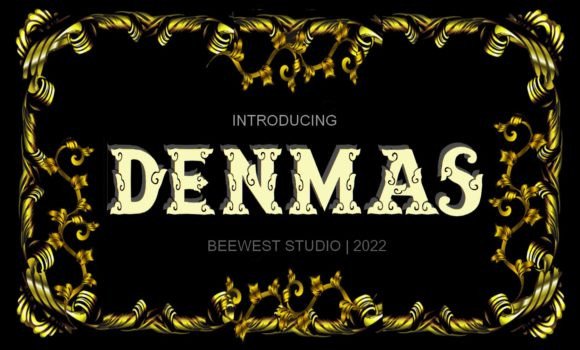
Discover the Unique Charm of Denmas Font: Elevate Your Designs with Modern Elegance
Are you on the hunt for a font that adds a touch of modern sophistication and unique flair to your projects? Look no further than Denmas Font. This contemporary decorative font is making waves in the design community, and for good reason. Its versatility and stylish appearance make it an ideal choice for a wide range of applications, from crafting and digital designing to presentations and greeting card making.
What Makes Denmas Font Stand Out?
Denmas Font is not just another addition to the vast world of typography. It brings a fresh and modern vibe that can instantly elevate your designs. Here are a few reasons why Denmas stands out:
- Modern Aesthetic: Denmas boasts a sleek and contemporary look that is sure to catch the eye. Its unique design elements make it perfect for projects that demand a modern twist.
- Versatility: Whether you’re working on digital projects, crafting, or creating physical greeting cards, Denmas adapts seamlessly to various mediums, ensuring your designs look great in any context.
- Elegance: Despite its modernity, Denmas carries an air of elegance that can add sophistication to your designs. It’s perfect for projects where you want to make a statement without going overboard.
Denmas Font is a fantastic tool for designers and crafters alike. Its wide range of applications makes it a valuable addition to any creative arsenal. Here are some ways you can use Denmas:
- Digital Designing: From website headers to social media graphics, Denmas can add a touch of modern elegance to your digital creations.
- Crafting: If you’re into scrapbooking, journaling, or any form of crafting that involves lettering, Denmas offers a stylish and contemporary look.
- Presentations: Make your presentations stand out with Denmas. Its unique style can add personality to your slides, making them more engaging.
- Greeting Card Making: Create beautiful and unique greeting cards for any occasion. Denmas’s elegant and modern design ensures your cards will be memorable.
Tips for Using Denmas Font Effectively
To get the most out of Denmas Font, consider the following tips:
- Mix and Match: Don’t be afraid to experiment by pairing Denmas with other fonts. A modern sans-serif font for body text can create a nice contrast.
- Play with Sizes: Utilize different font sizes to create visual hierarchy in your designs, making some elements stand out more than others.
- Color Matters: Choose colors that complement the modern and elegant vibe of Denmas. Monochromatic schemes or contrasting colors can both work well, depending on your design.
Denmas Font is a game-changer for anyone looking to add a modern and elegant touch to their designs. Its versatility, unique style, and wide range of applications make it an invaluable resource for designers and crafters. Whether you’re working on digital projects or physical crafts, Denmas is sure to inspire and elevate your creations. So, why wait? Dive into the world of Denmas Font today and discover a new level of design sophistication.
Embrace the modern elegance of Denmas Font and transform your designs with its unique charm. Perfect for crafting, digital designing, presentations, and greeting card making, Denmas is your go-to font for making a stylish statement.